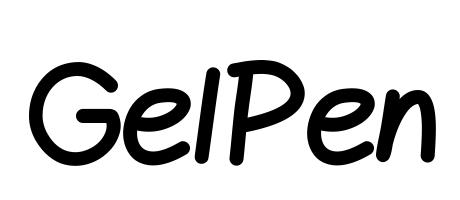
GelPen
By Shara Weber
GelPen: A playful, handwritten-style font. Its rounded forms and slightly uneven strokes give it a casual, almost childlike charm. The lowercase 'g' and 'p' are particularly expressive, with their flowing curves. The overall effect is friendly and approachable, suggesting creativity and spontaneity.